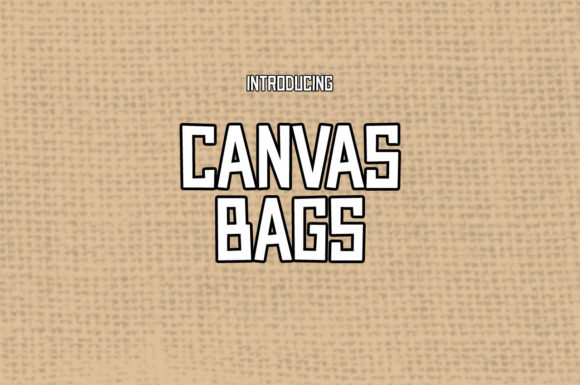
Introducing the Canvas Bags Font: A Delightful Touch of Cartoonish Charm for Your Designs!
Welcome to the world of whimsical typography, where creativity meets fun! The exuberant Canvas Bags font, crafted by the imaginative minds at Chequered Ink, is an absolute delight for design enthusiasts seeking a touch of cartoonish charm.
Whether you're an artist, a crafter, or a business owner, the Canvas Bags font is your passport to a world of boundless creativity. Unleash your inner child and let your designs bloom with cheerful exuberance.
Step into a Realm of Playful Possibilities
With its whimsical strokes and expressive characters, the Canvas Bags font breathes life into your designs. Imagine creating eye-catching posters that make people smile, designing greeting cards that warm hearts, or crafting social media posts that radiate infectious joy.
Bring Life to Your Designs
The Canvas Bags font is a versatile masterpiece that adapts seamlessly to a myriad of design projects. Infuse your logos with a playful personality, add a touch of whimsy to your flyers, or let your website headers dance with delight. Each letter is a miniature work of art, ready to captivate and engage your audience.
Capture Hearts with Every Word
In the digital age, where attention spans are fleeting, the Canvas Bags font is your secret weapon to capture hearts and minds. Its charming appearance instantly draws the eye, making your messages impossible to ignore. Engage your audience, evoke emotions, and leave a lasting impression with every word you write.
Discover a World of Creative Expression
With the Canvas Bags font, the possibilities are as boundless as your imagination. Create invitations that spark joy, design packaging that delights customers, or craft social media content that sets your brand apart. Unleash your creativity and let the Canvas Bags font guide you on a journey of artistic exploration.